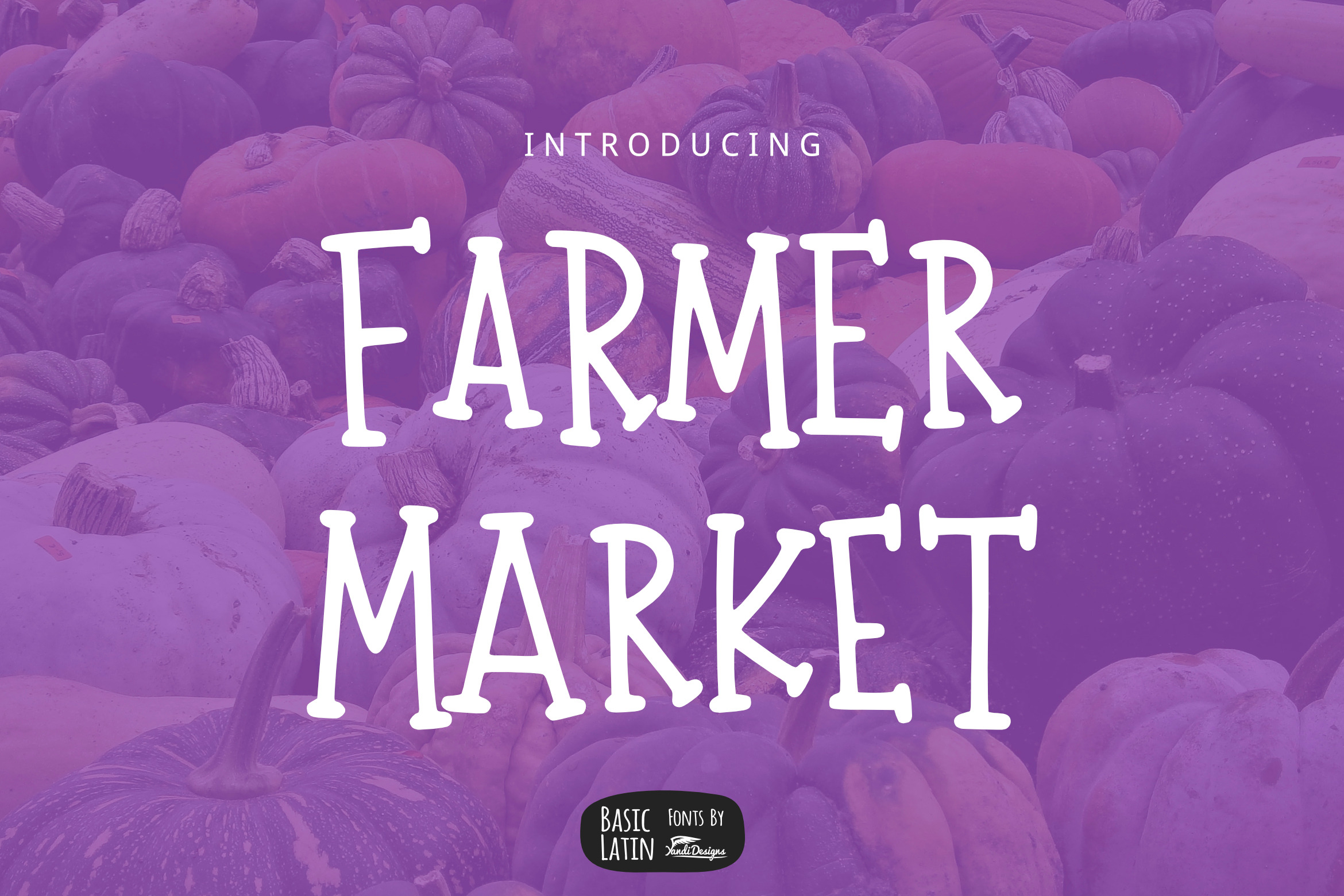
Farmer Market Simple Font
Farmer Market Font
Simple all caps multipurpose font , suitable for many project children book, quotes, logo , heading , title etc.
Basic Latin (Standard English character , number, symbol)